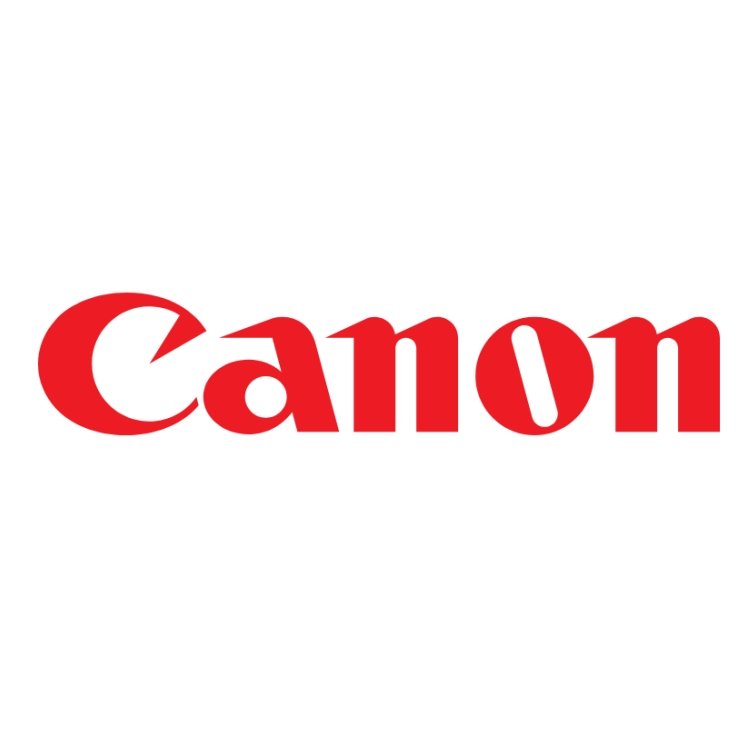
Canon is the Japanese company specialized in manufacturing products like cameras, camcorders, photocopiers and computer printers etc. It was founded in 1937 and headquartered in Tokyo, Japan.
Originally, Canon was named as Kwanon. It was known in Japan as the Buddhist Bodhisattva Guan Yin. So the first logo Canon company was an image of “Kwanon with 1000 arms and flames”. The new logo of Canon is in vivid red color which is quite familiar to the people around the world. The font used in the current logo is a customized logotype. A fan made font called Canon created by Legba is available on internet. It is quite similar to that customized logo. You can download this fan made font for free from here.